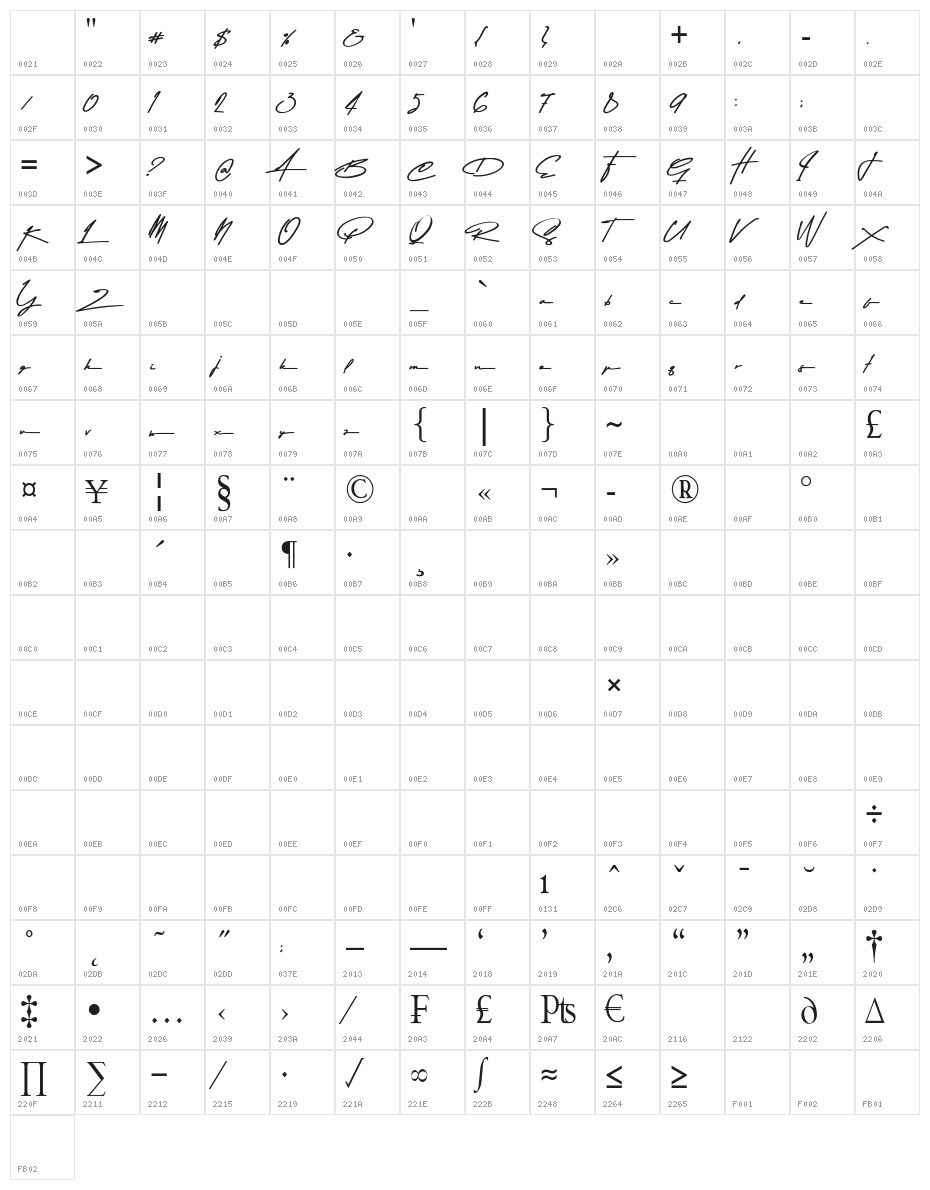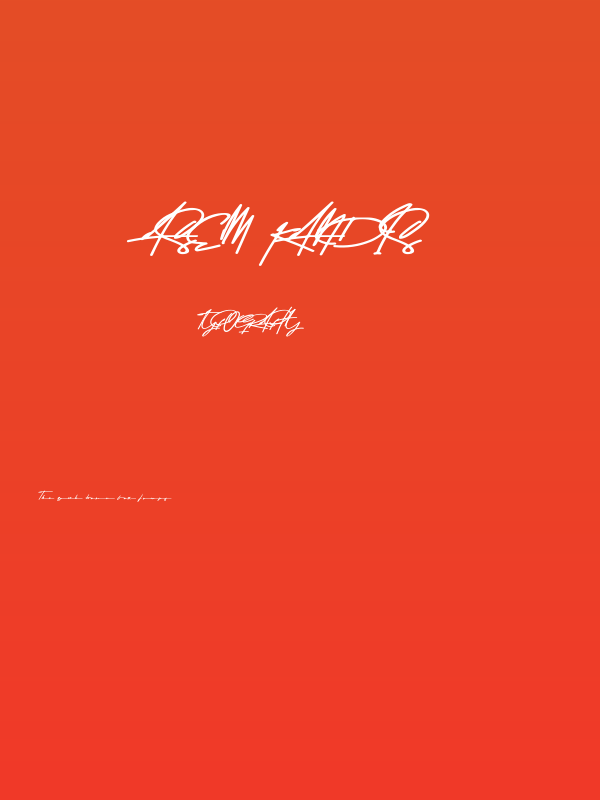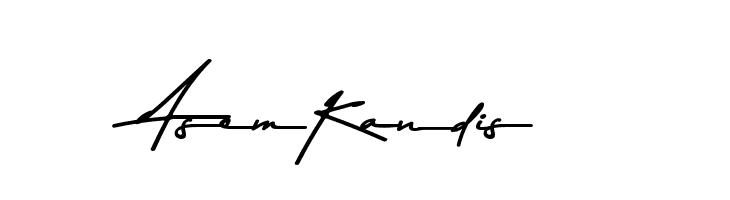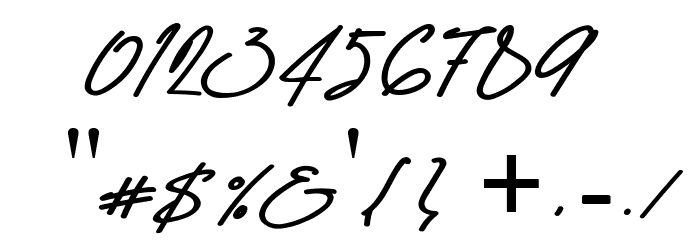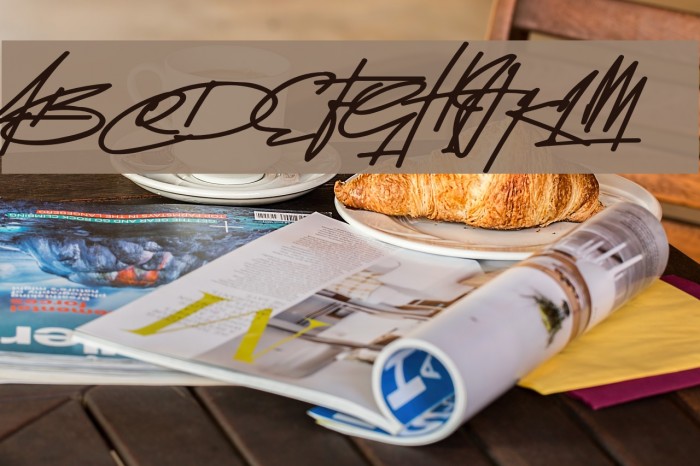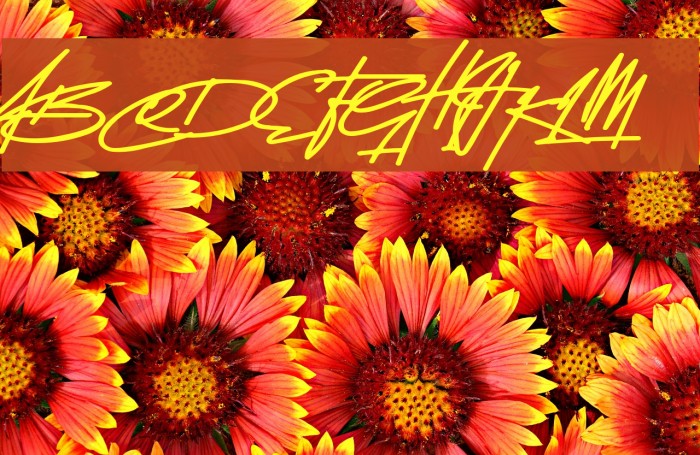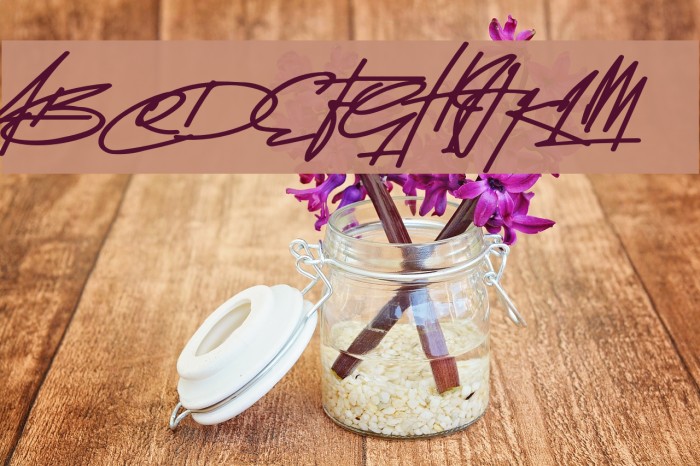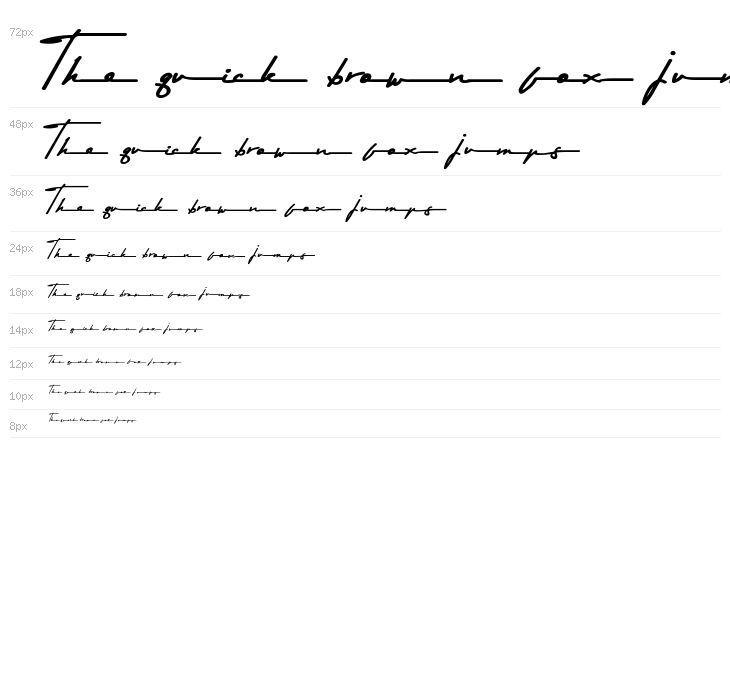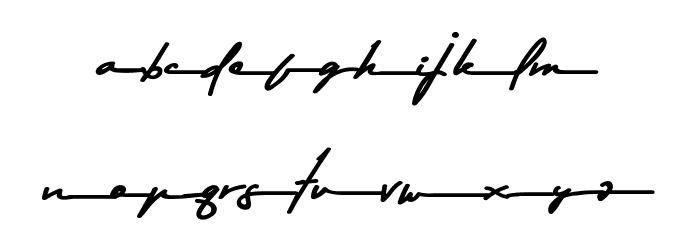
Asem Kandis Font
Asem Kandis Description
This font exhibits a dynamic and energetic style, characterized by its bold and expressive strokes. The letters are interconnected, creating a fluid and continuous script that mimics natural handwriting. The uppercase letters are particularly striking, with exaggerated loops and curves that convey a sense of movement and flair. The lowercase letters maintain a consistent flow, enhancing the overall cohesiveness of the design. Numbers and special characters are crafted with the same attention to detail, ensuring they complement the alphabetic characters seamlessly. This font's unique personality makes it ideal for projects that require a personal touch or a sense of spontaneity.